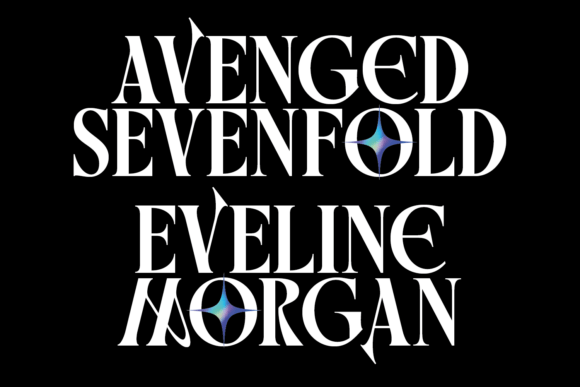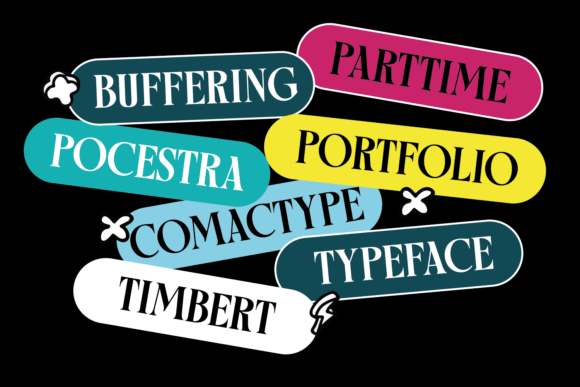
Introduction to Micilage Font
Have you ever stared at a blank page, waiting for the perfect font to bring your creative project to life? The search can be daunting, but what if I told you that the perfect font for that luxurious, high-end look is just a download away? For designers seeking a classic yet modern aesthetic, Micilage Font is the ultimate game-changer.
With its elegant serif design, Micilage Font exudes sophistication and refinement, making it perfect for large-scale use in headlines, logos, and posters. Its unique decorative elements, such as swashes on certain uppercase letters, add a touch of whimsy and personality to any design. Whether you’re working on a project with a transparent background or need a high-quality font for your design resource, Micilage Font is an invaluable asset for any designer.
As a free download, Micilage Font is an accessible and affordable design resource that can elevate your creative work to the next level. Its versatility and high-quality design make it an essential tool for any designer looking to add a touch of luxury and sophistication to their work.
Key Features of Micilage Font
- High-quality design resource for creative projects, offering a unique and elegant style.
- Transparent background option for easy customization and blending with other design elements.
- Designed with precision, ensuring crisp and clear typography at resolutions up to 300 DPI.
- Perfect for use in a variety of creative projects, including logos, graphics, and digital artwork.
- Comes in a single font weight, ideal for designers who want a clean and minimalist aesthetic.
Honest Review: Micilage Font
I recently stumbled upon the Micilage Font, and I must say it’s been a game-changer for my creative projects. This font is a valuable addition to any designer’s toolkit, offering a unique blend of elegance and sophistication.
- ✨ High-quality design: Micilage Font boasts crisp lines, smooth curves, and a stunning aesthetic that’s perfect for branding and marketing materials.
- ✨ Transparent background: This font is available with a transparent background, making it a breeze to integrate into any design, regardless of the color scheme.
While Micilage Font is a fantastic design resource, I do have a few reservations:
- ⚠️ Limited language support: As a multilingual designer, I’d love to see more language support added to this font.
- ⚠️ Limited stylistic variations: While Micilage Font is elegant, I’d appreciate more stylistic variations to add some depth and personality to my designs.
Overall, Micilage Font is a solid addition to any designer’s arsenal. Its high-quality design, transparent background, and free download make it an excellent resource for creative projects. With a few tweaks to address its limitations, Micilage Font could become a true industry standard.
Micilage Font
Tips for Getting the Most Out of Micilage Font
Use the Micilage Font with a transparent background to create a seamless design. Experiment with different font sizes and styles to add visual interest to your project. You can also use the font in combination with other design resources to create a unique look.
The Micilage Font is perfect for a variety of creative projects, including logos, brochures, and social media graphics. You can also use the font to create a high-quality digital magazine or ebook.